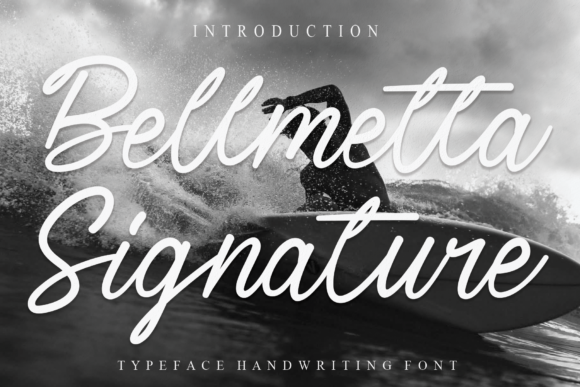
About Bellmetta Signature Font
Bellmetta Signature is a font that exudes delicacy and polish in its handwritten style. With its beautiful and well-balanced characters, this font effortlessly matches a wide range of designs, adding a touch of sophistication to your creative ideas.
The delicate and polished handwritten style of Bellmetta Signature brings a sense of elegance and charm to your creations. Each letter carries the smooth and artistic touch of handwriting, making your work stand out with a touch of timeless beauty and allure.
With Bellmetta Signature as your creative tool, you have the freedom to explore various design ideas. Whether you’re working on projects that require a refined and sophisticated vibe, creating designs with a touch of delicacy and elegance, or adding a distinct element of beauty to your work, Bellmetta Signature adapts effortlessly to bring a sense of versatility and charm to your designs.
Embrace the delicate and polished style of Bellmetta Signature and witness how it transforms your creations into exquisite works of art. Its well-balanced characters add a touch of authenticity, making your designs truly captivating and mesmerizing.
Discover the joy of creating with Bellmetta Signature as your trusted companion. Let its handwritten appearance be the key to unlocking your creativity and infusing your work with a sense of refined elegance and sophistication.
Whether you’re designing for personal projects or professional endeavors, Bellmetta Signature is the font that adds that extra touch of flair and beauty to your creations. Embrace Bellmetta Signature and notice how it enhances the appeal and impact of your designs, making them truly special and unforgettable.
Let Bellmetta Signature be the font that sparks your inspiration and brings a touch of delicacy and polish to your designs. Experience the magic of Bellmetta Signature and witness how it elevates your creative projects, making them truly alive and filled with a sense of timeless style and allure.